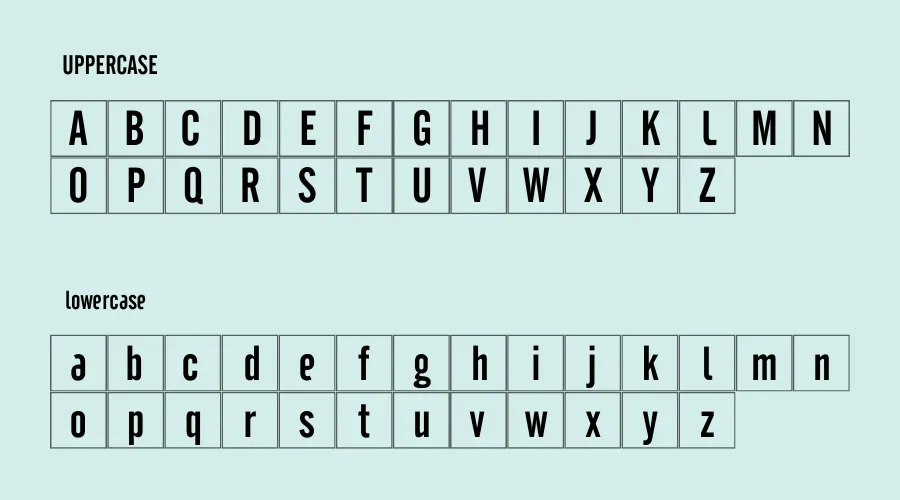
About Cafeta Font
The Cafeta font is a beautiful sans-serif typeface created by the Spanish graphic designer, Inaki Marquinez. This font is perfect for adding an elegant yet modern touch to any design project. It is a perfect choice when a design requires a clean and contemporary look, as the form of the characters is smooth and straightforward.
This typeface was designed with clear intent; it is meant to be legible and inviting, with subtle characteristics that increase its readability. The most prominent feature of this font is the slightly slanted crossbars in some of its letters and numbers. This feature helps make the font friendly and eye-catching.